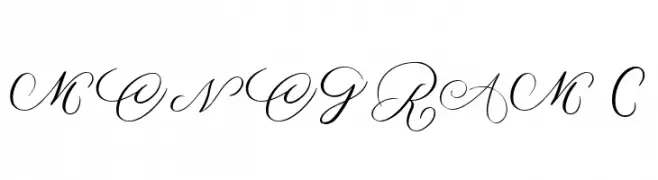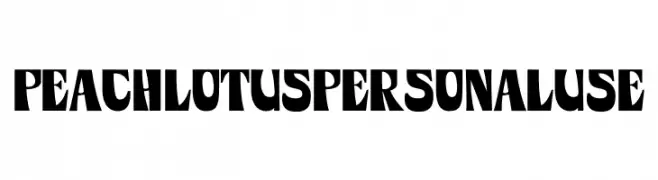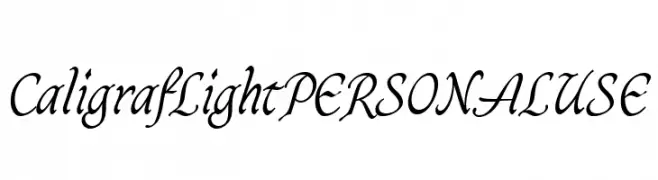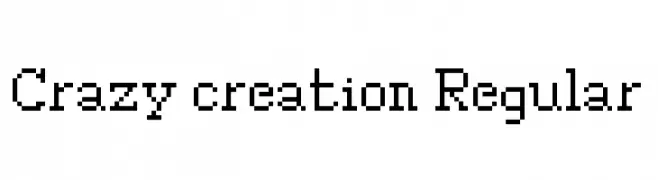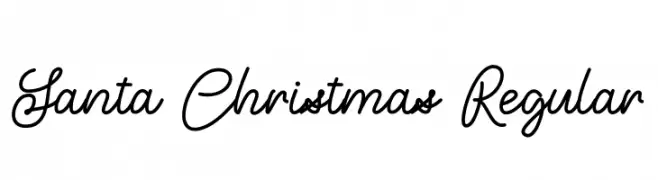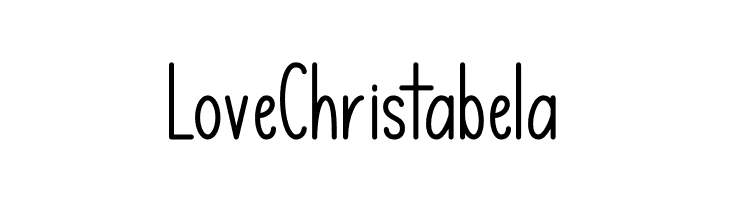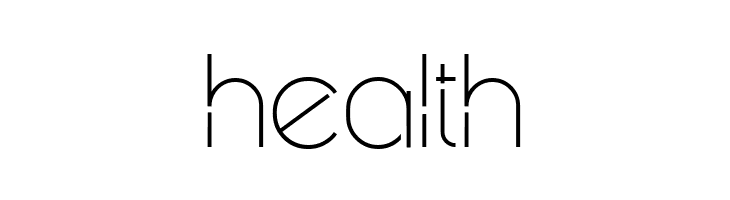
An elegant script font with intricate swashes and flourishes, perfect for decorative use.
A bold, dynamic font with sharp and curved elements for striking visual impact.
A playful, handwritten font with smooth curves and a casual style.
A modern, decorative font with bold, rounded strokes and unique cutouts.
An elegant script font with flowing, cursive letterforms.
A pixelated, blocky font with a retro digital aesthetic.
A modern, expressive handwritten font with elegant, elongated strokes.
A dynamic, brush-style cursive font with a handcrafted feel.
A festive, cursive script font with elegant, flowing characters.
A bold, geometric stencil font with a slanted, modern design.